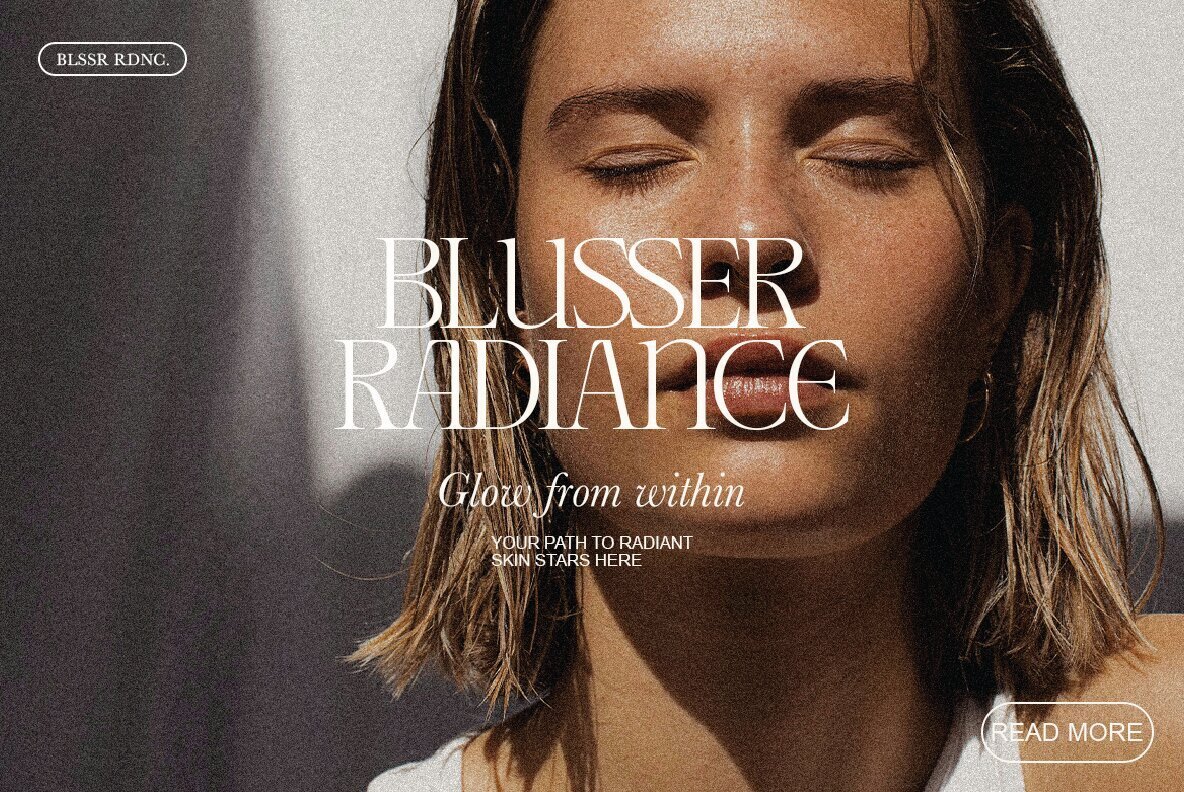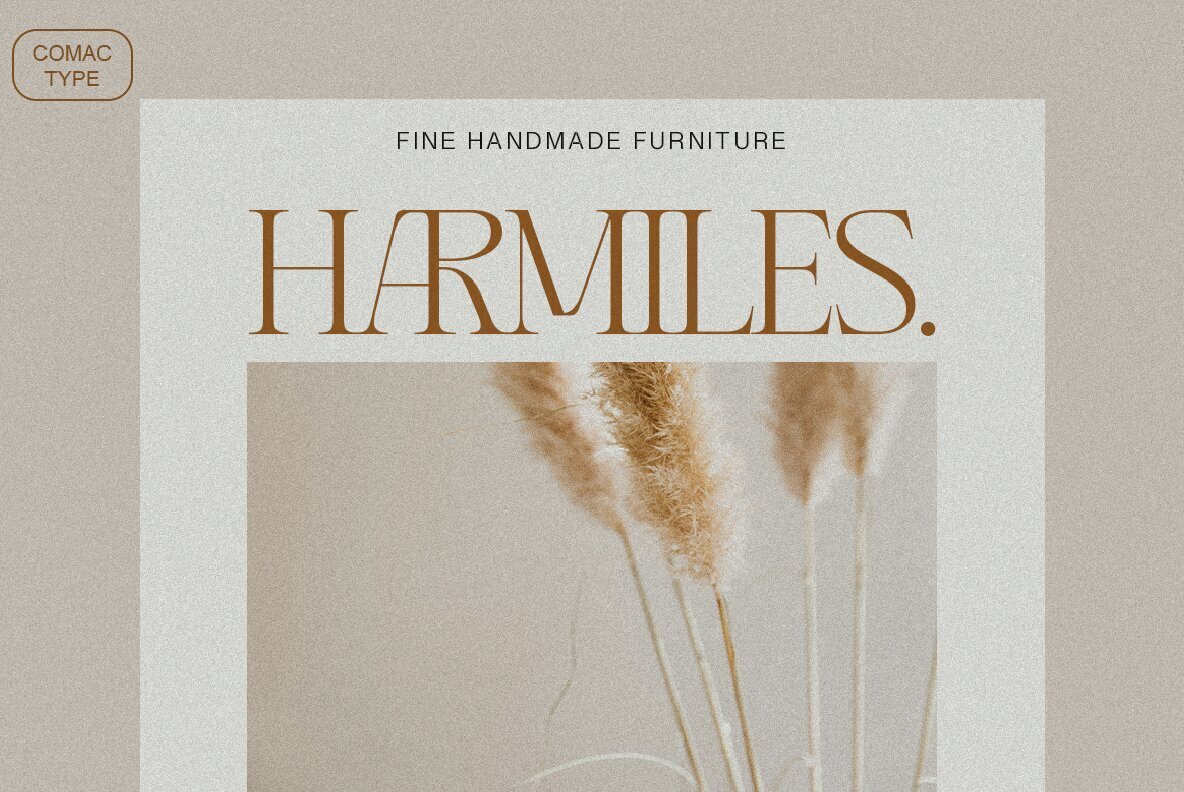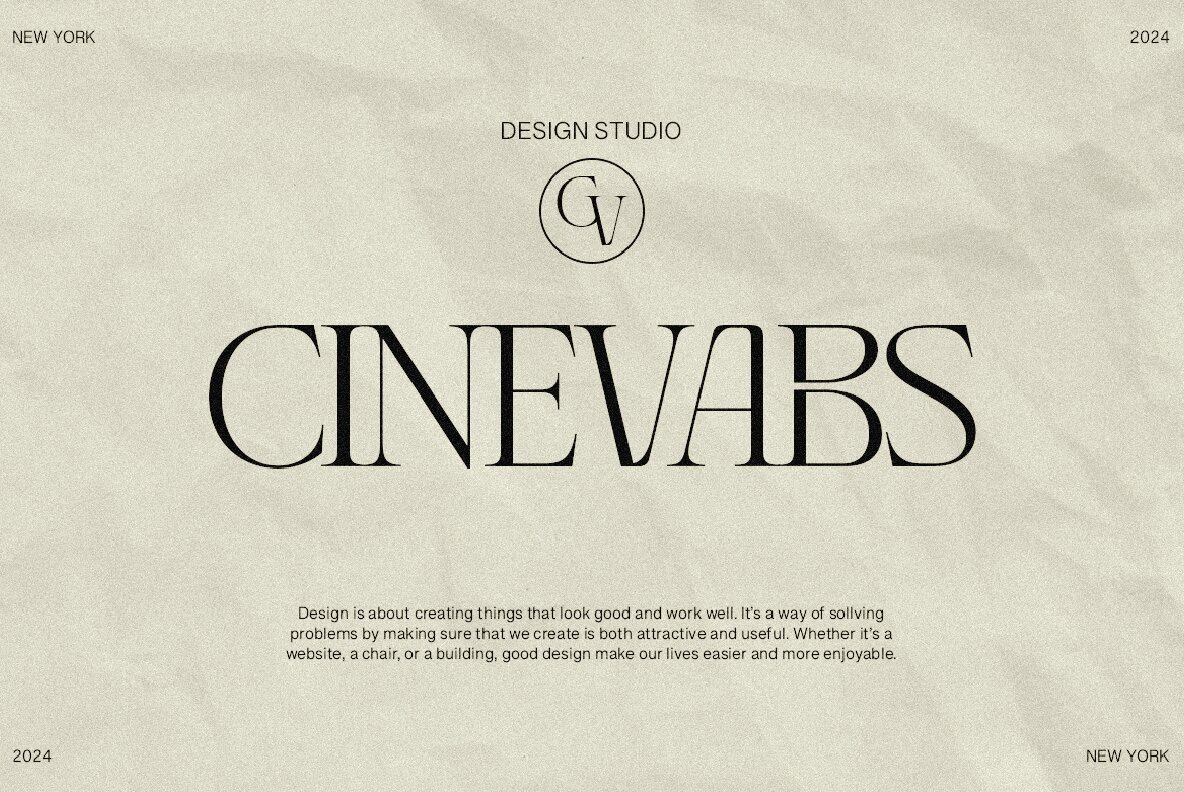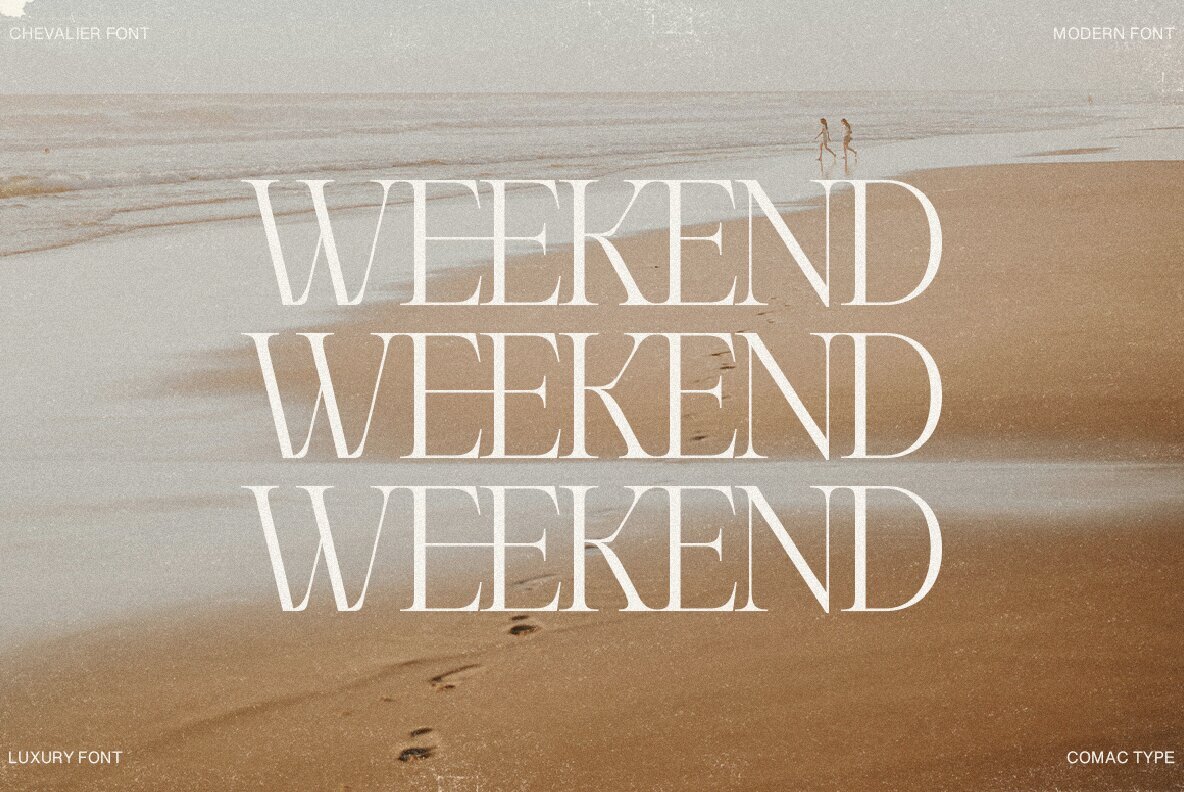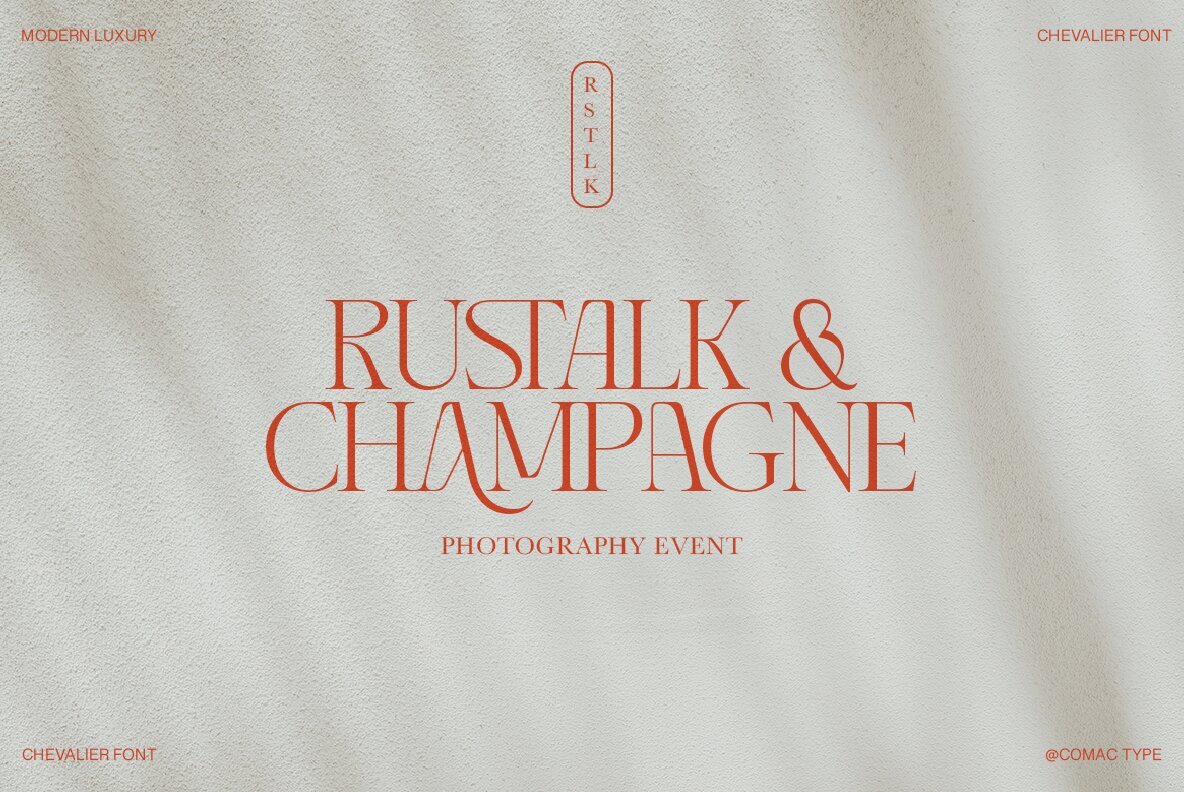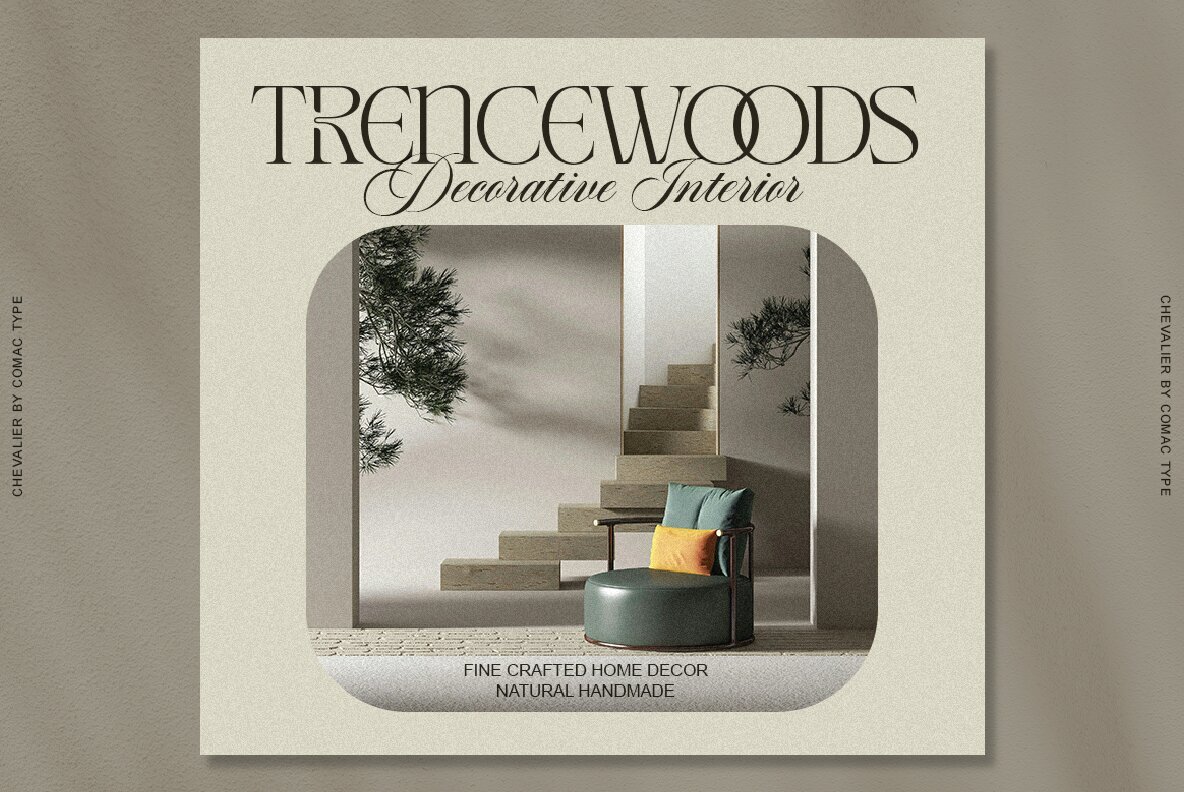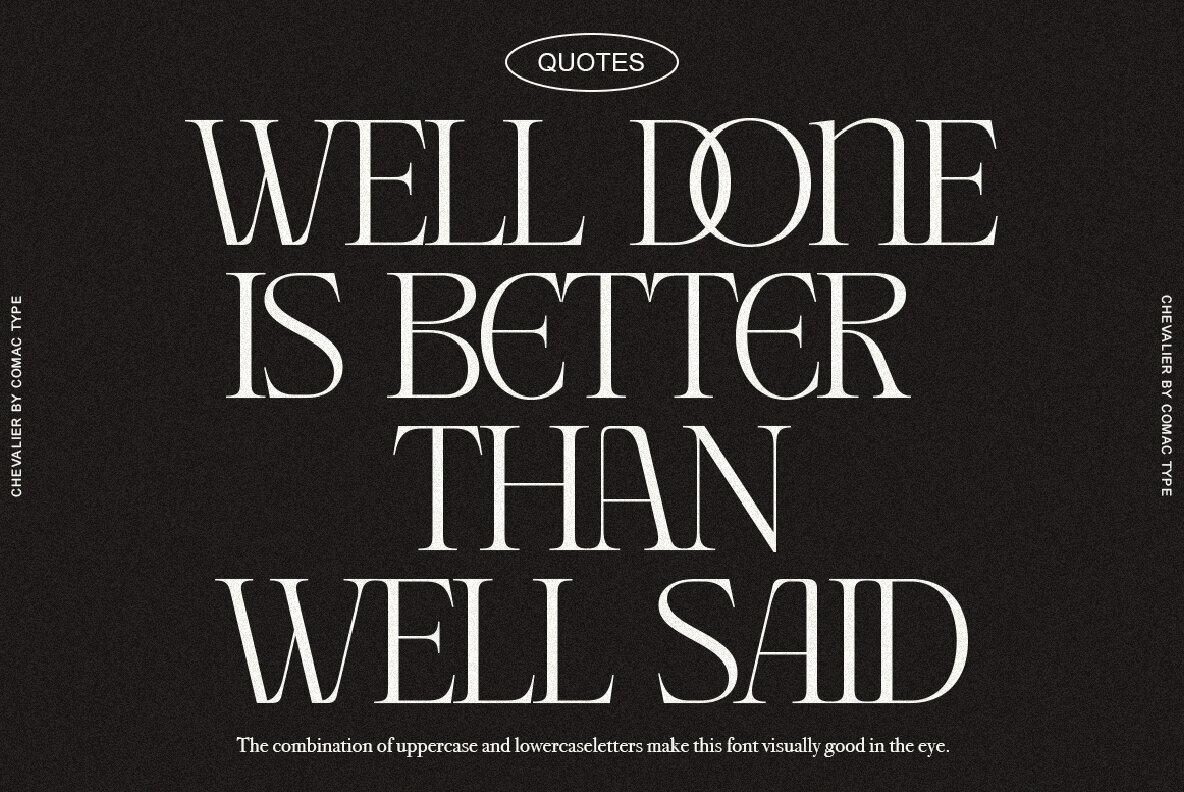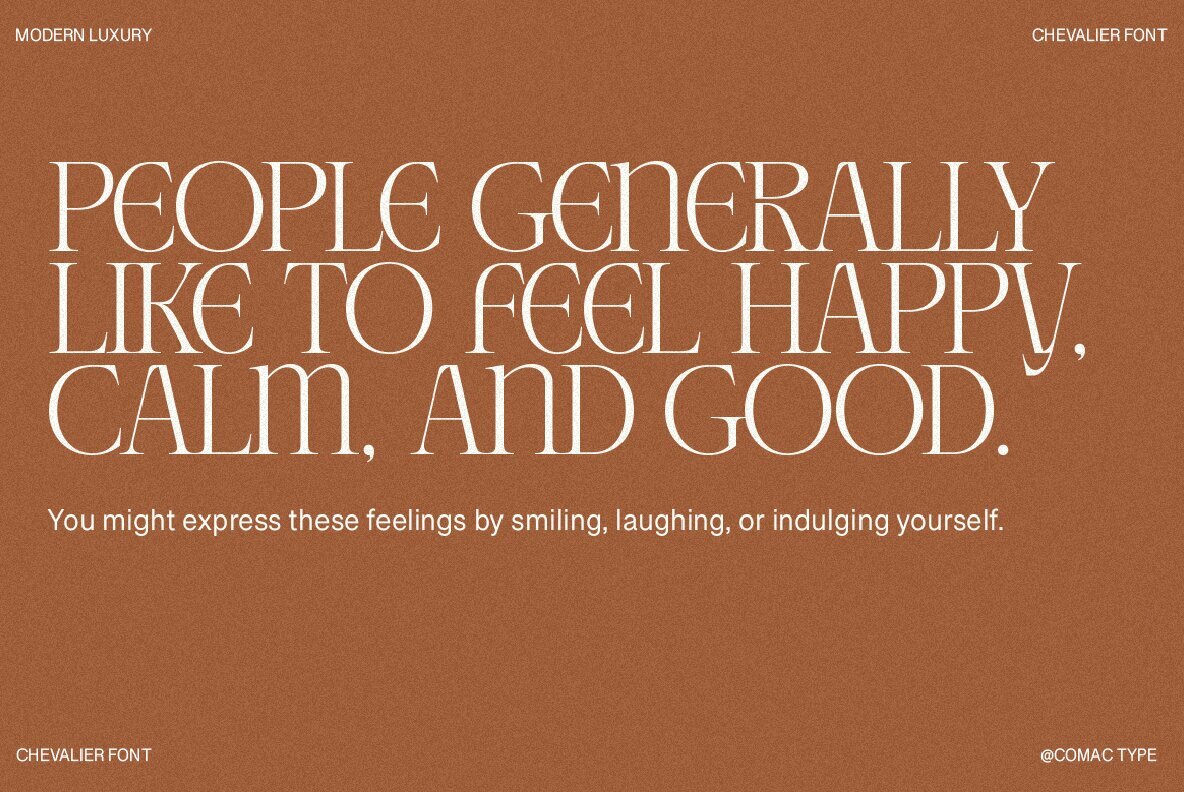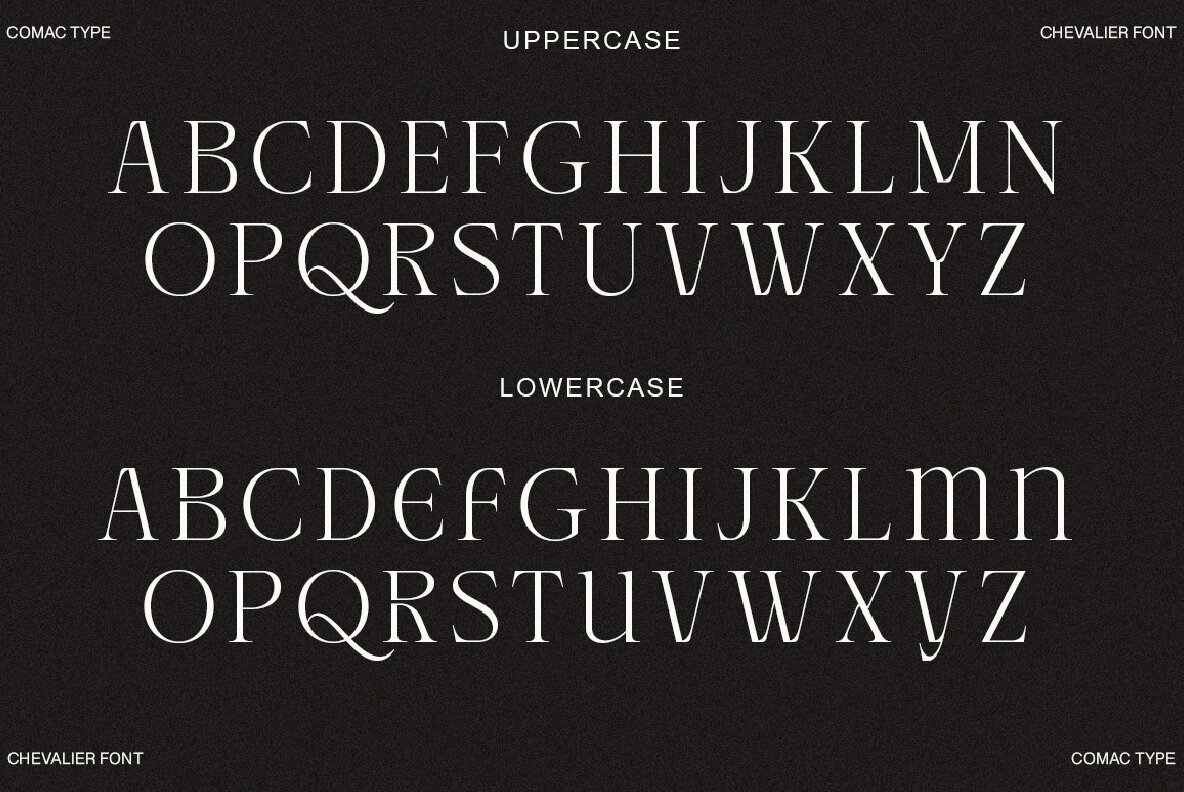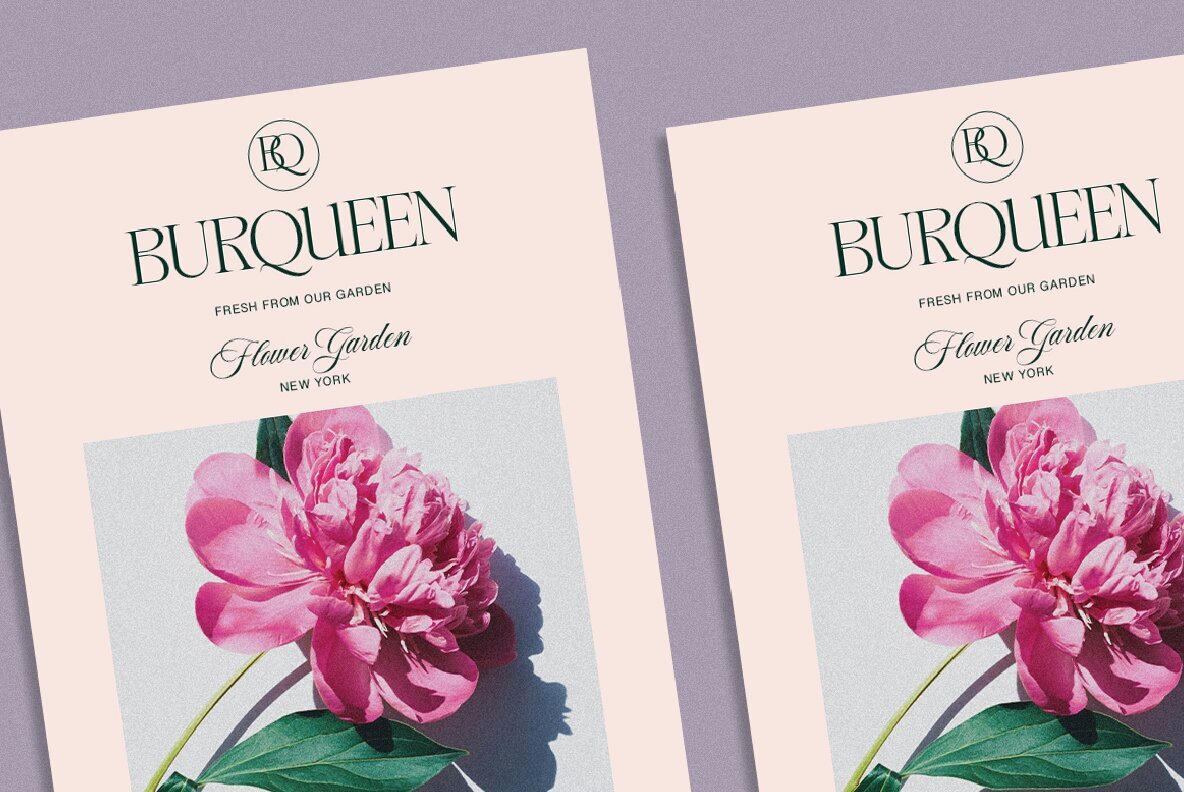
CHEVALIER Font
Chevalier: Versatile Font for Modern and Vintage Design
CHEVALIER is a multipurpose and unique display font, ideal for both modern and vintage designs. Its adaptability makes it a valuable asset for various projects.
Applications
• Branding – Perfect for creating standout brands.
• Print Templates – Enhances the appeal of printed materials.
• Logo Design – Offers a distinctive look for logos.
Font Features
• Uppercase and Lowercase – Includes both letter cases for versatility.
• Ligatures and Alternate Styles – Provides style variations.
• Multilingual Support – Accommodates multiple languages for global use.